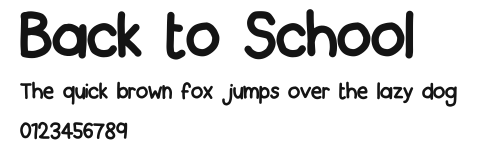
Back to School  Preview
• Font Name: Back to School
• Full Font Name: Back to School
About Back to School .ttf
Back to School .ttf is a modern, elegant sans-serif font designed for ultimate readability and visual harmony. Perfect for branding, headlines, web design, and print materials.